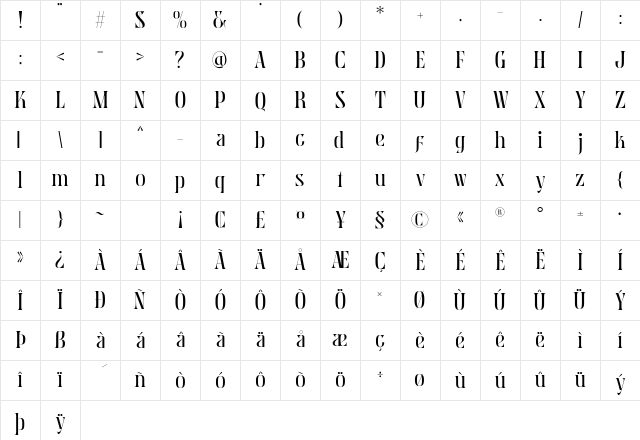
Mobern Fashion - Demo Version Medium Regular
Foundry: Nirmana Visual
Designer: Sigit Dwipa Raharjo
Design Context for Mobern Fashion - Demo Version Medium
Mobern Fashion - Demo Version Medium is a composed and adaptable typeface that performs quietly and consistently across a wide range of design contexts.